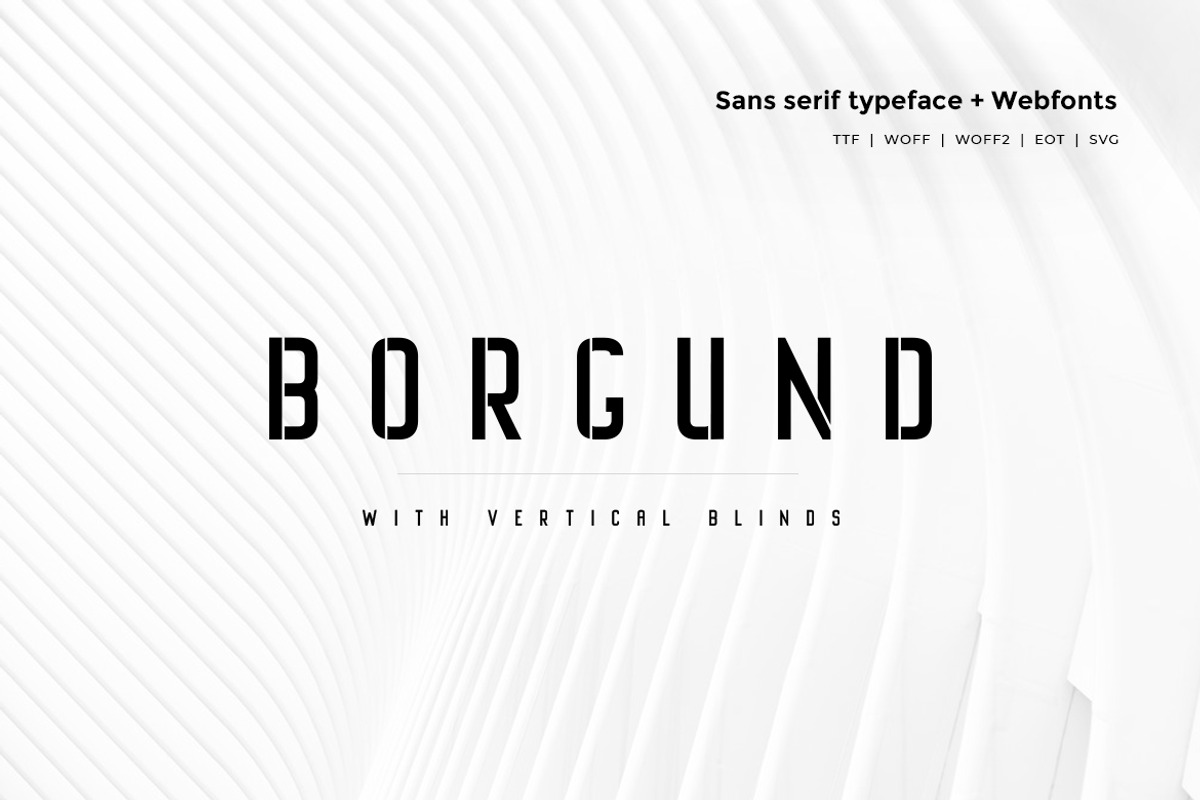
Borgund Blinds - Typeface + Webfonts
Borgund Blinds Typeface
Borgund Sans is a modern and Minimal Sans Serif typeface, Borgund Sans can keep the minimalism at its level best and is a Perfect choice for Creative and Classic Typography Designs. The pack includes OTF, TTF and Web Fonts (all EOT, SVG, TTF, WOFF included).
Why Borgund Blinds - Typeface + Webfonts is worth a look
Borgund Blinds - Typeface + Webfonts by Webhance Studio fits naturally into Branding, posters, packaging, typography.